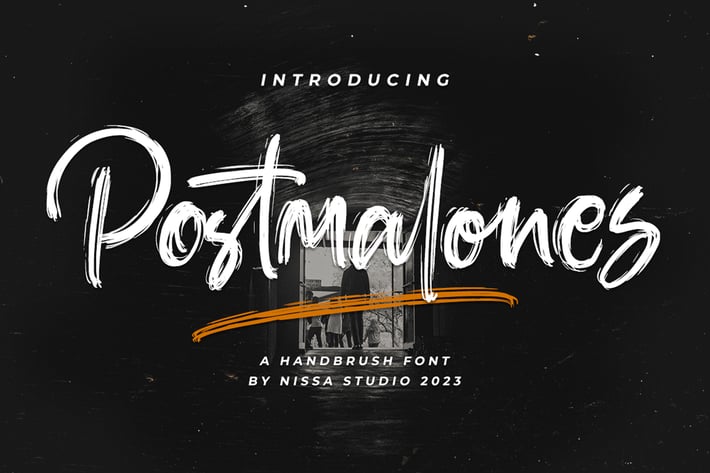
Postmalones - Brush Font
NissaStudio
Postmalones is a gorgeous, stylish, and bold brushed handwritten font. Strong, confident, and dynamic, this font can make any of your creative projects stand out!
Modern Handwritten Font
Special Ligatures